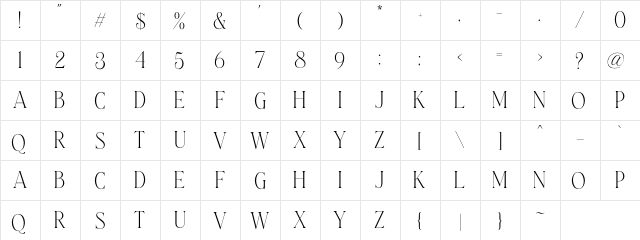
Laterlocks DEMO Regular
| Foundry | Letterhend Studio |
| Designer | Letterhend Studio, Sarid Ezra |
Design Context for Laterlocks DEMO Typeface
Laterlocks DEMO takes a measured approach to typography — its balanced proportions and neutral character make it a reliable workhorse for both digital and print work.